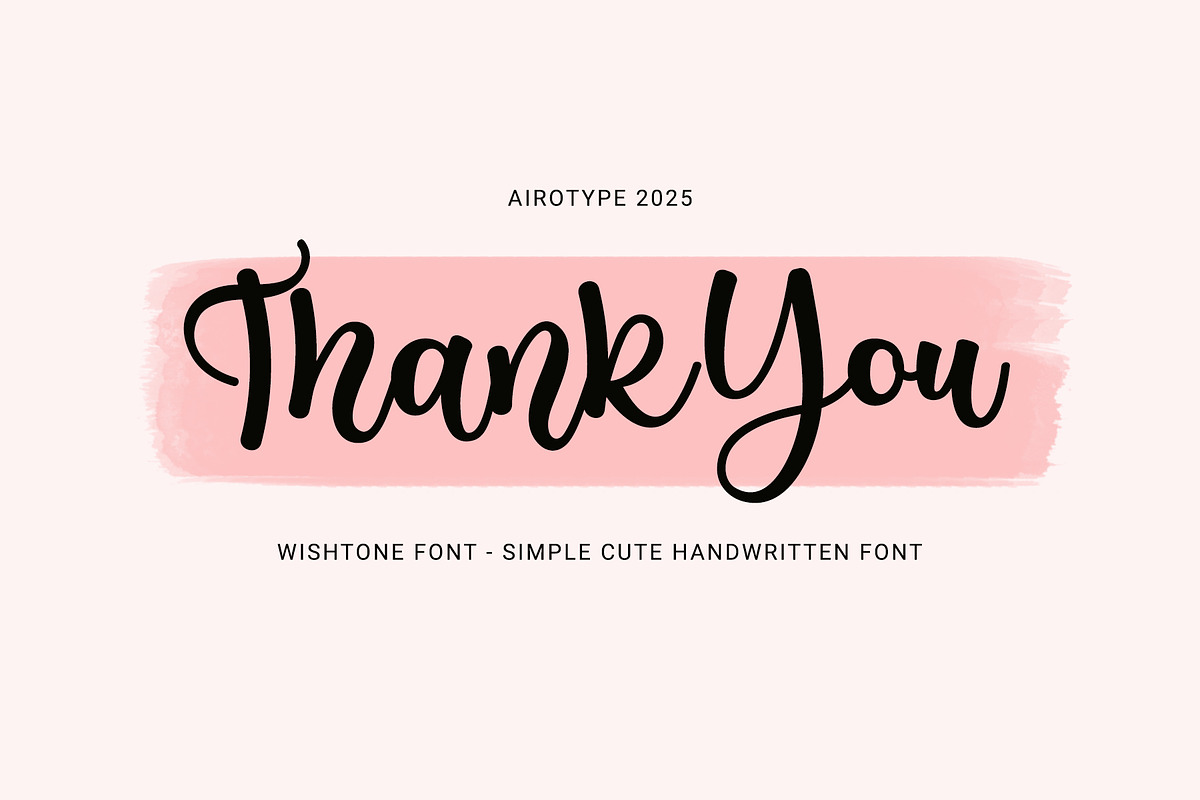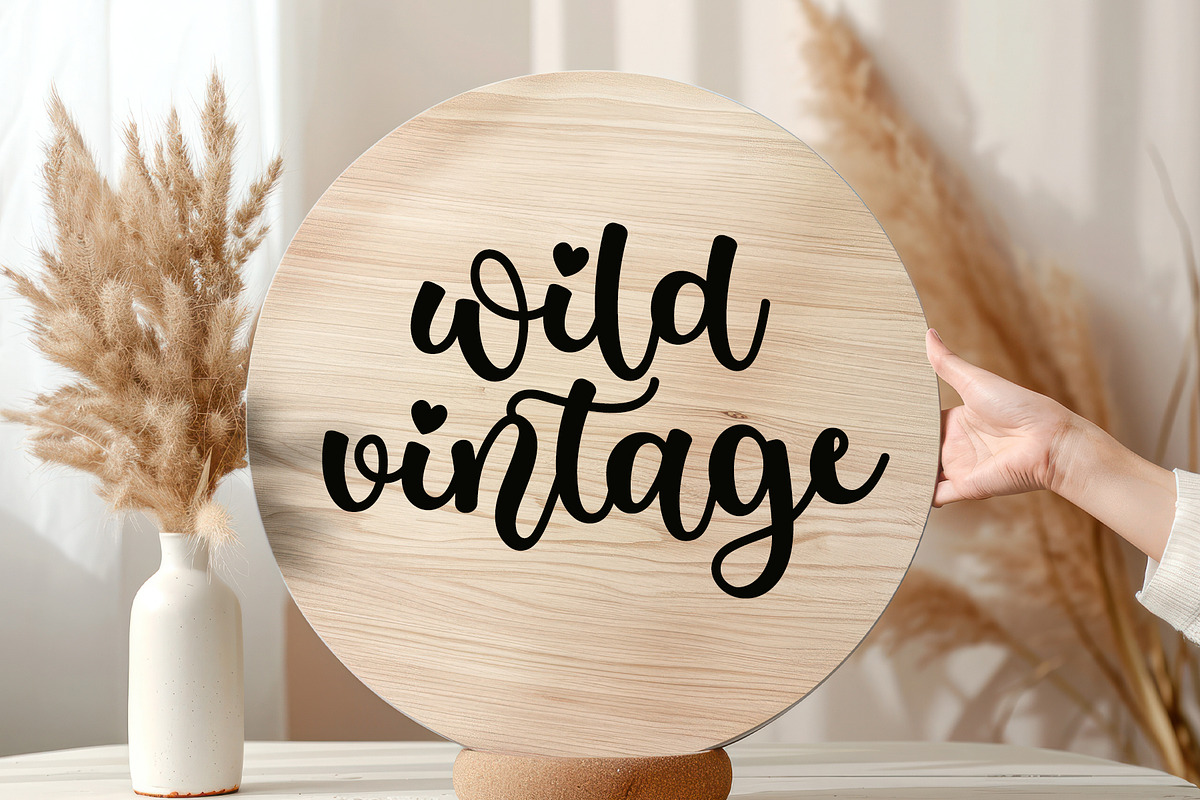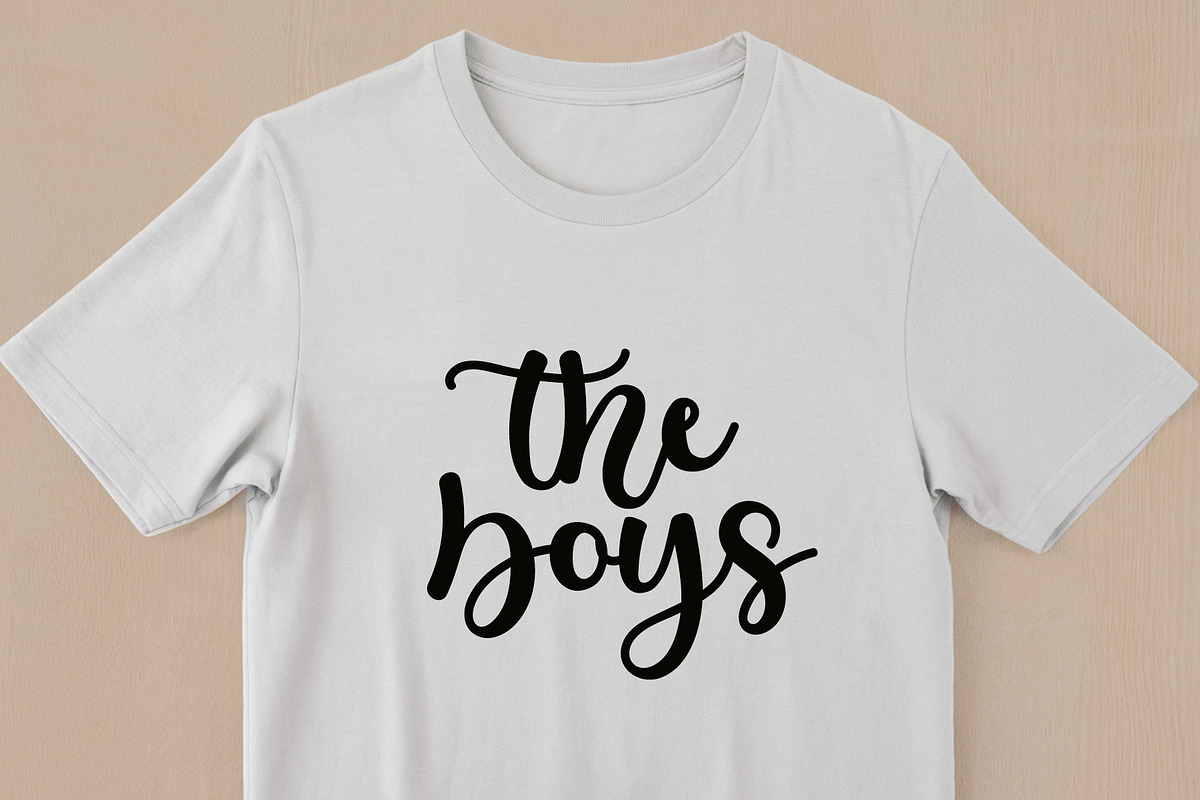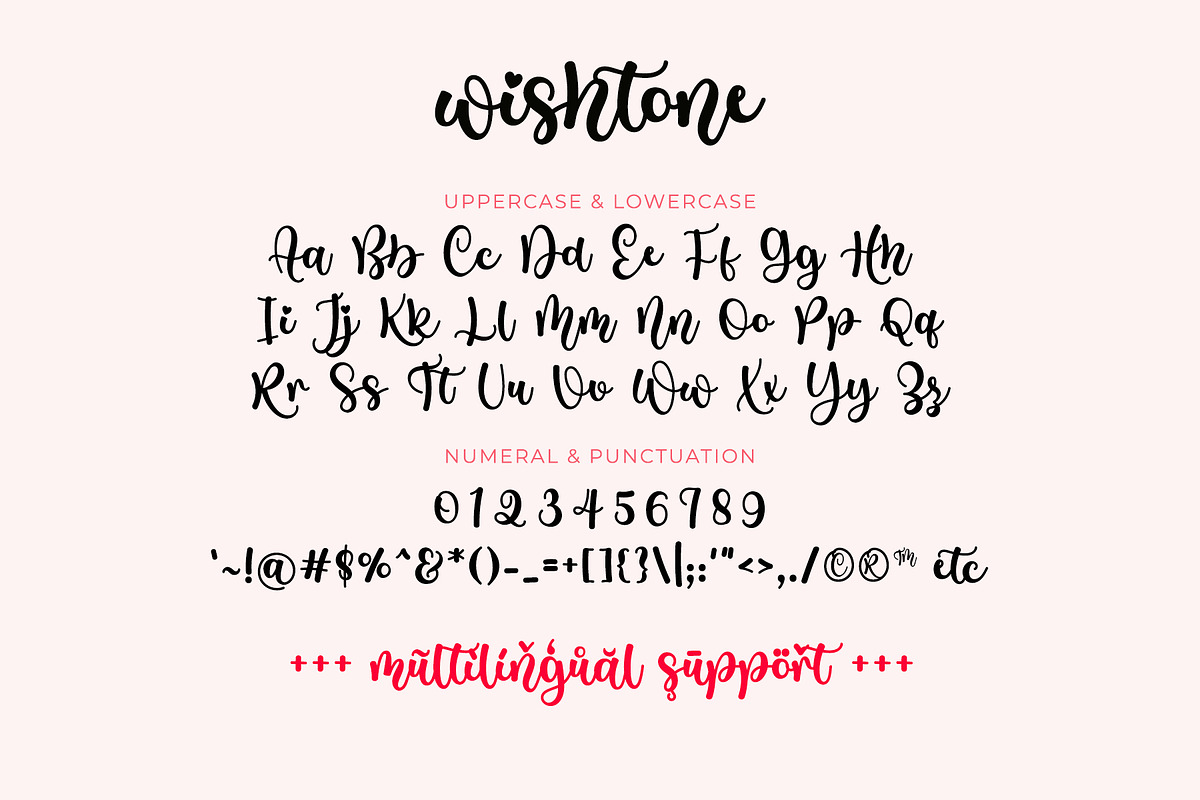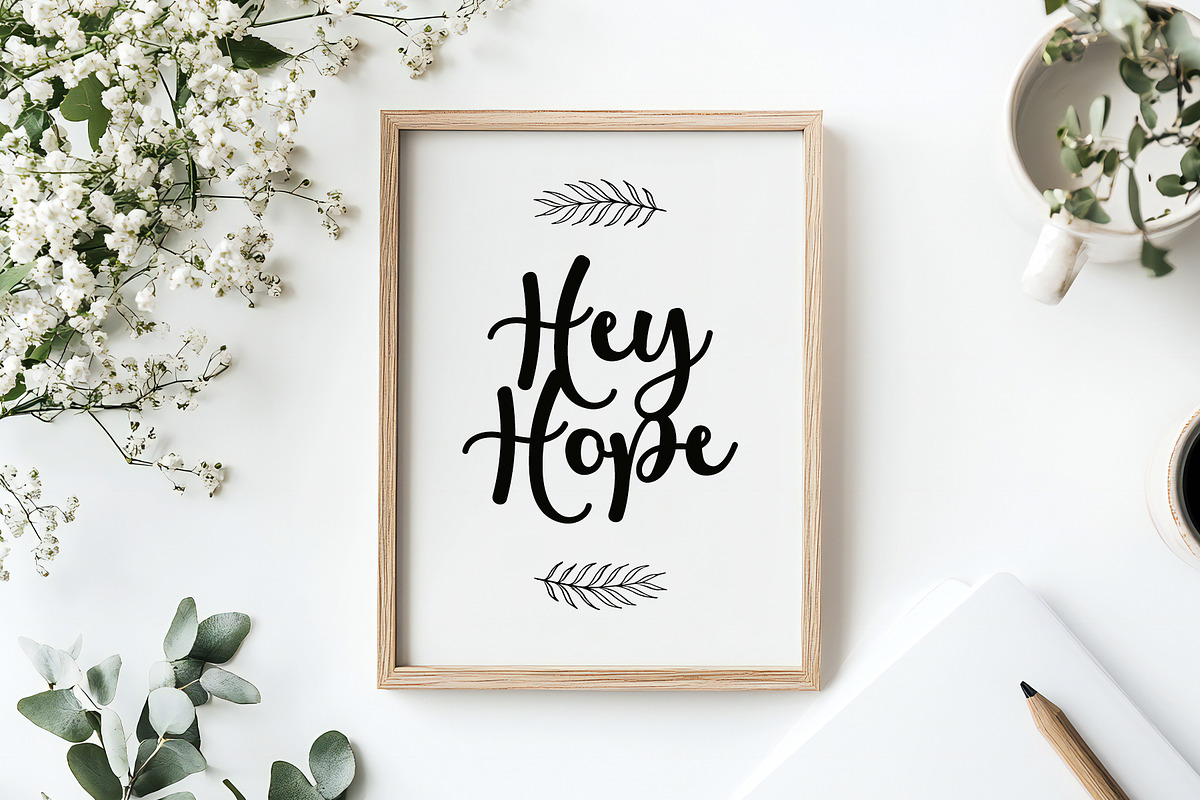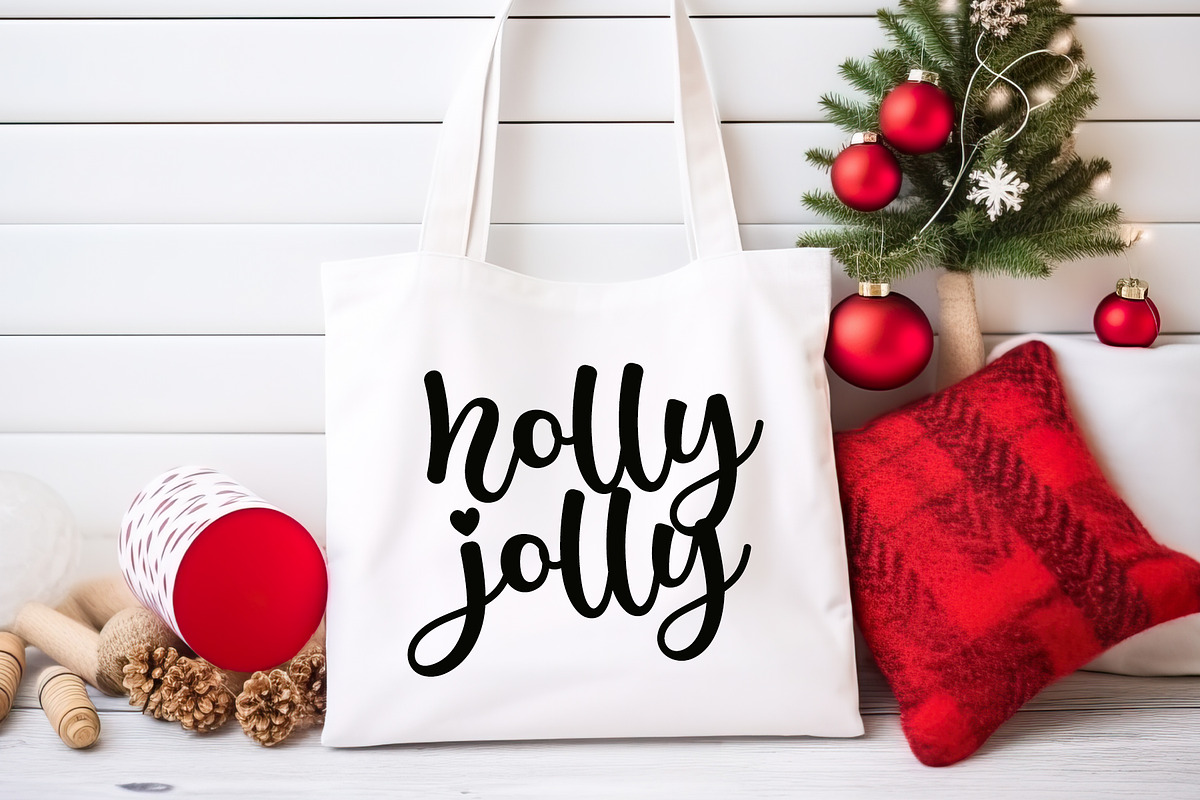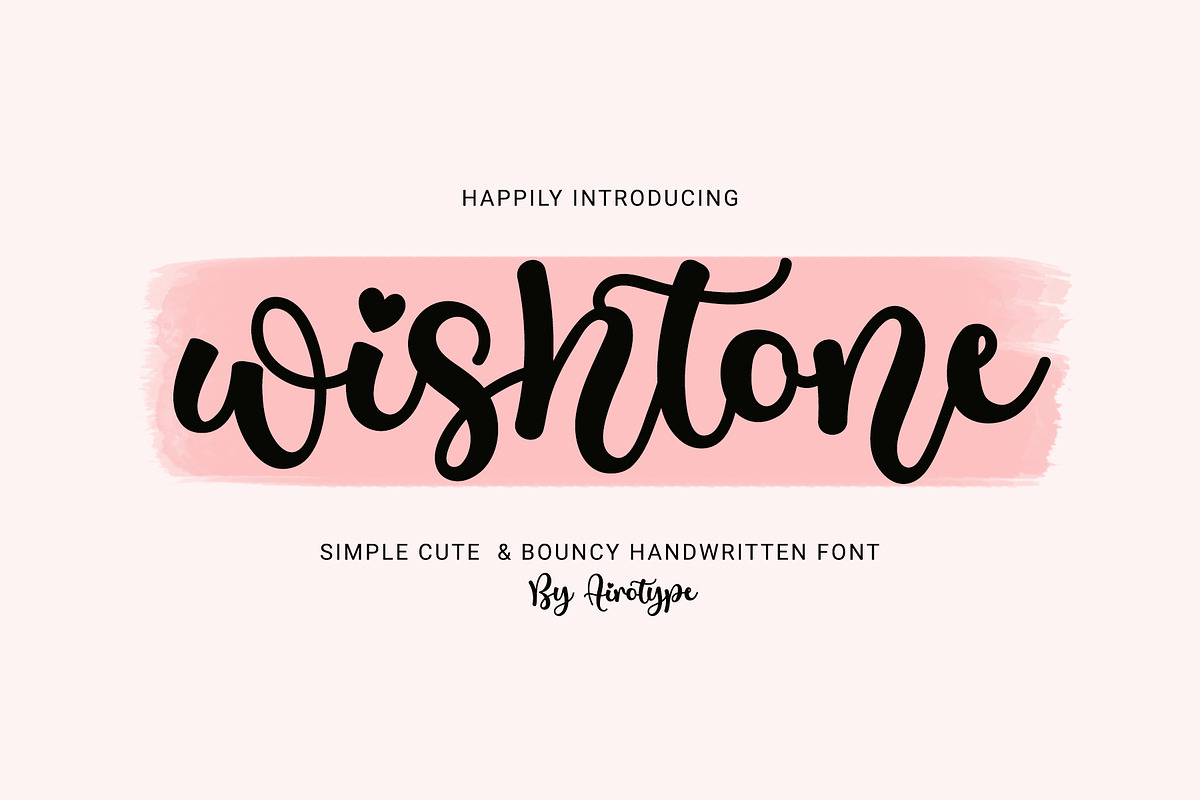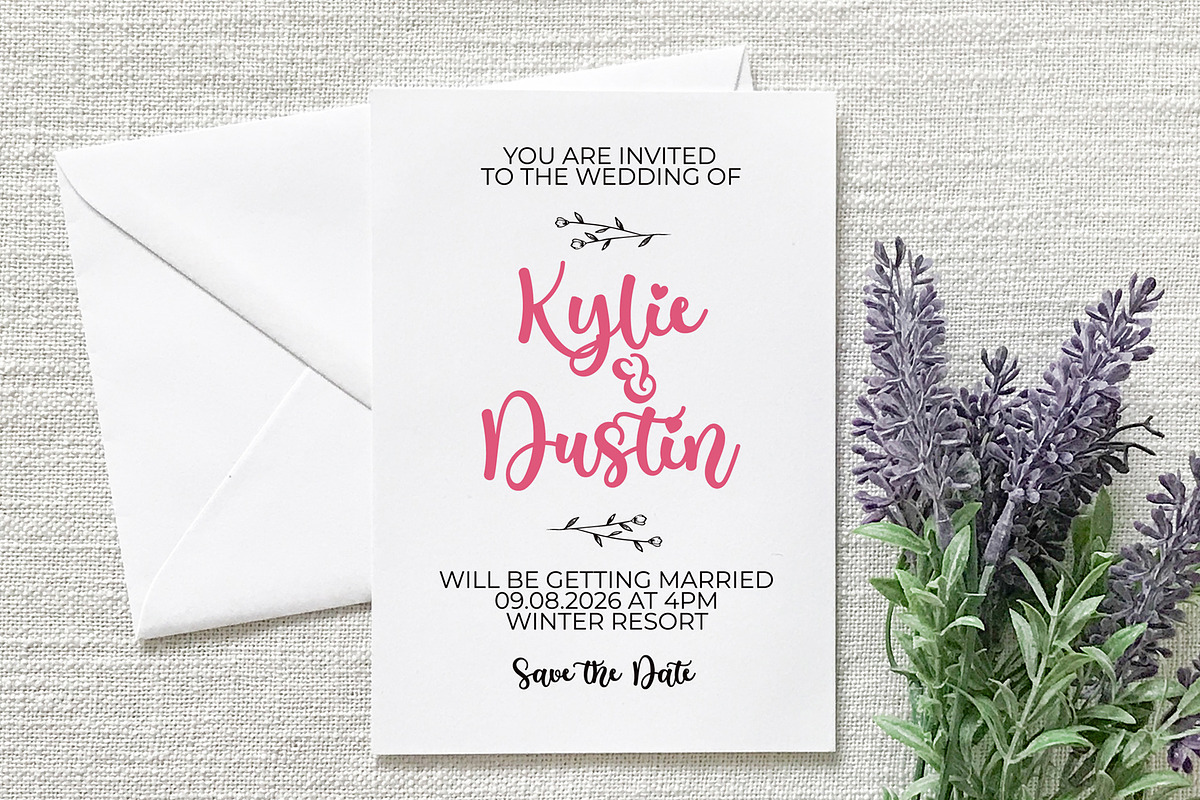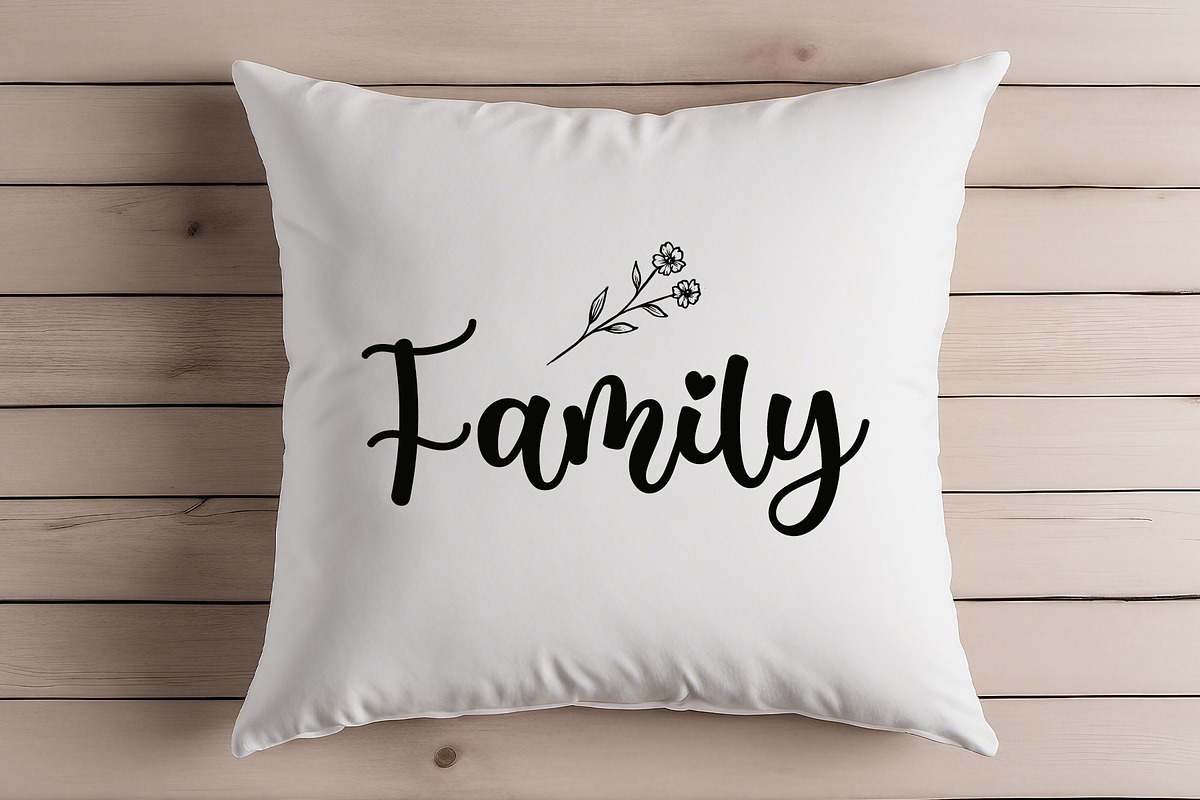
Wishtone - Simple Handwritten Font
Wishtone is simple and cute handwritten font. This font has natural and flowing style.
Wishtone is suitable for design that needs simple handwritten touch, such as wedding design, invitation, signature, logo, birthday, t-shirt design, crafting, sticker, sublimation, and many more.
- Most Multilingual Accent